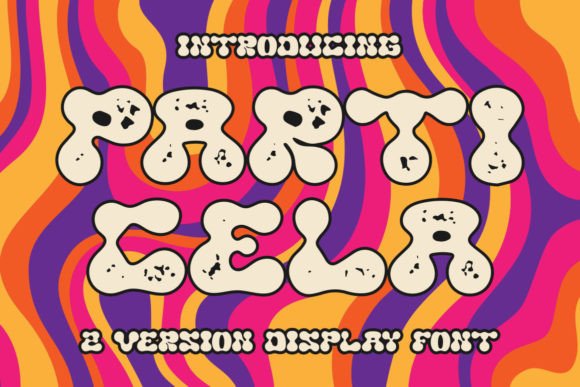
Unleash your creativity with Particela, a groovy display font that embodies the spirit of retro and funk. This typographic gem, brought to life by the talented Putracetol, is a visual feast that will transform your designs into masterpieces.
Particela transports you back to an era of bell bottoms, psychedelic art, and groovy tunes. Its unique aesthetic, reminiscent of the swinging sixties and seventies, will add an instant touch of nostalgia and charm to your projects. Whether you're creating posters, flyers, social media graphics, or eye-catching logos, Particela is the perfect font to make a statement.
With Particela, you're not just downloading a font; you're embarking on a retro adventure. This font is more than just a collection of letters and symbols; it's a portal to a bygone era, where creativity and self-expression reigned supreme.
So, if you're ready to infuse your designs with a touch of retro magic, Particela is the font for you. Its PUA encoding makes accessing all the glyphs and ligatures a breeze, ensuring you have the flexibility to create truly unique and captivating designs.